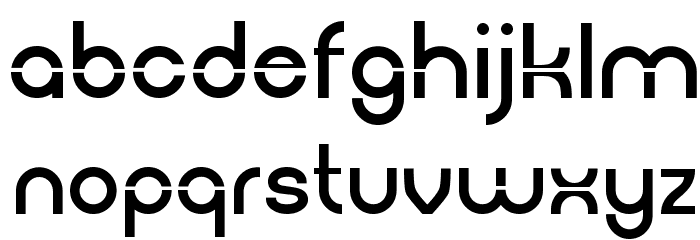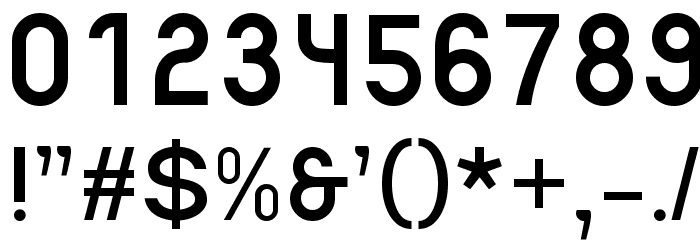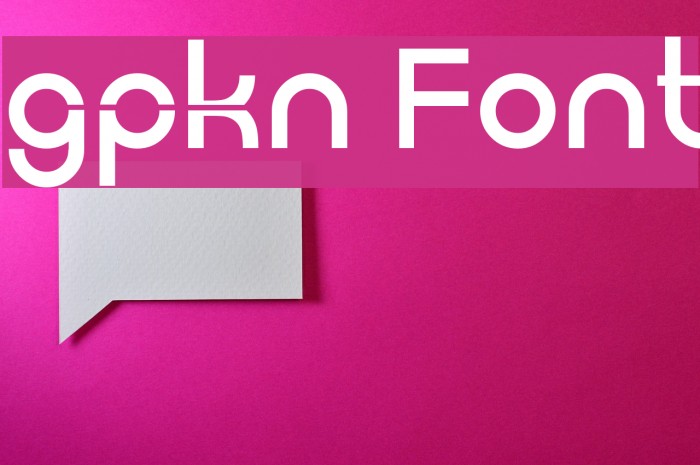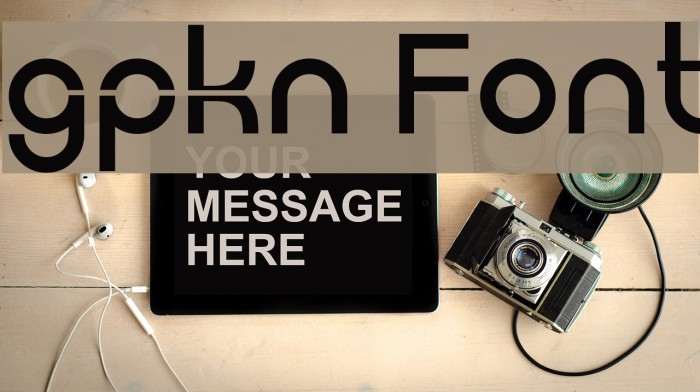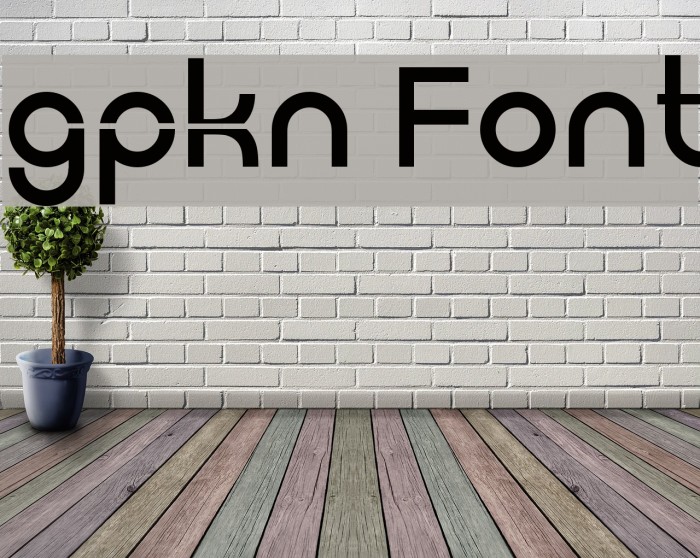
gpkn Font
This font exhibits a modern and geometric style with clean lines and a uniform stroke width. The characters are well-balanced, featuring rounded edges that give a soft yet contemporary appearance. The uppercase letters are bold and assertive, while the lowercase letters maintain a consistent height, enhancing readability. Numbers are distinct and easy to differentiate, making them suitable for various applications. Special characters are designed with the same geometric precision, ensuring a cohesive look across all glyphs. The overall design is minimalistic, making it versatile for both digital and print media.
A modern, geometric font with clean lines and rounded edges.
- Proposed Projects: Ideal for branding, web design, advertising, and editorial layouts.